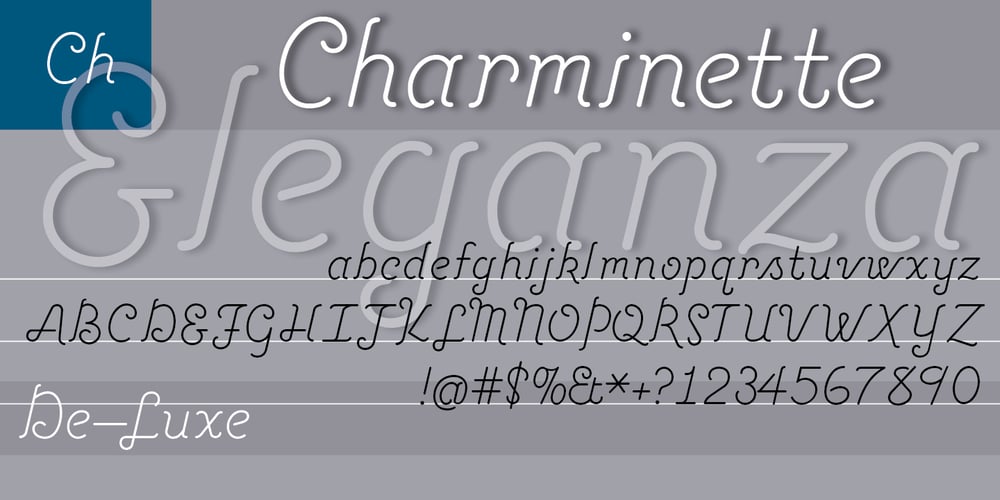
Charminette
Charminette font
Charminette Font Family was designed by Joe VanDerBos and published by Vanderfont. Charminette contains 2 styles and family package options. Released in November 2003, Charminette is the Collection’s first face with a consistent baseline and x-height. Intended as a display face to be used large, it’s also surprisingly readable at smaller sizes. Charminette asks to be considered for invitations to formal parties and weddings, any occasion when proper manners are called for. Or, when proper manners need to be subverted. A toast to civility!